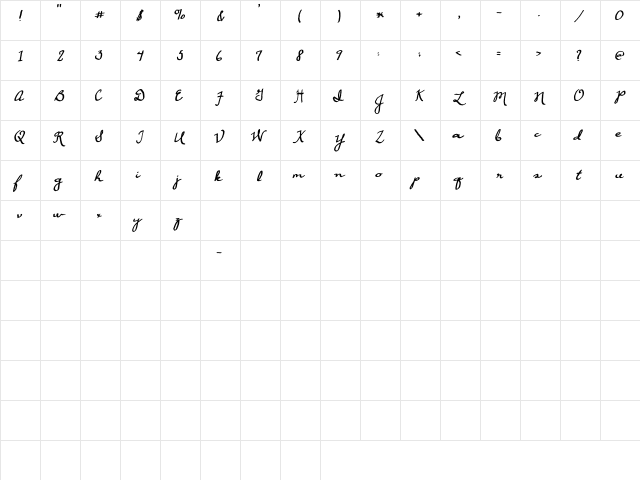
2Peas Wedding Day 2Peas Wedding Day Font Preview
Design Context for 2Peas Wedding Day Typeface
2Peas Wedding Day is a composed and adaptable typeface that performs quietly and consistently across a wide range of design contexts.